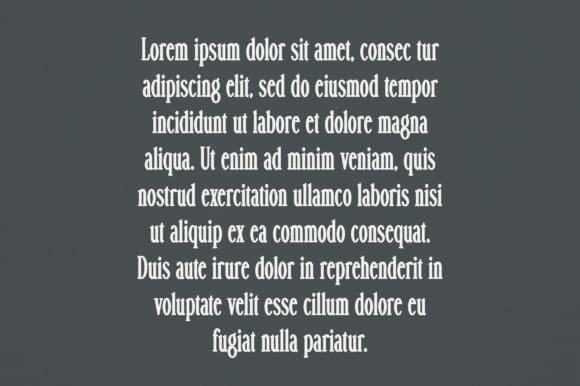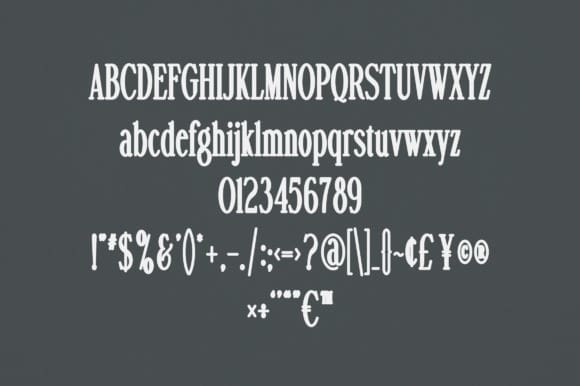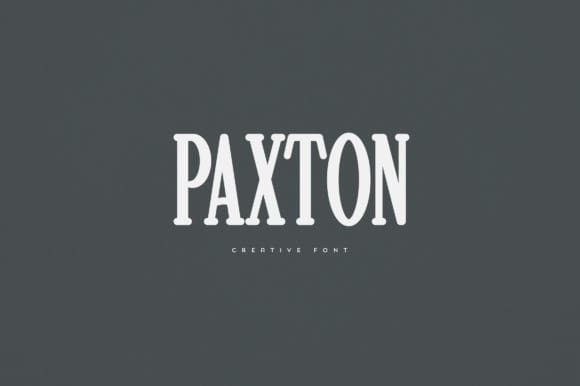
Paxton Font
Paxton Font is an elegant and versatile display font that will make your typography truly unique! It will enchant every logo, branding, headline, or plain text!